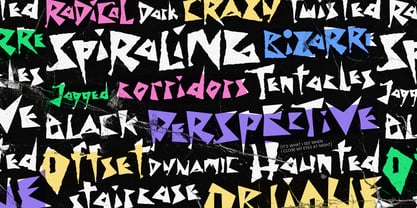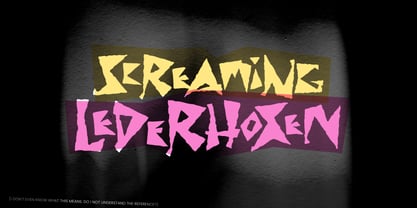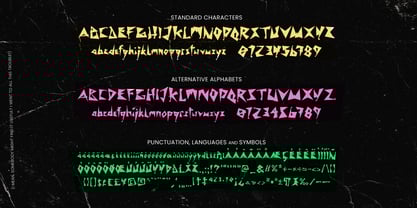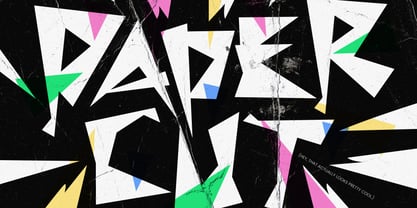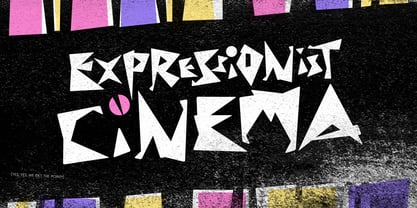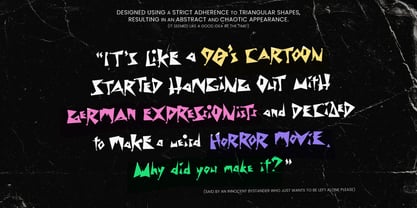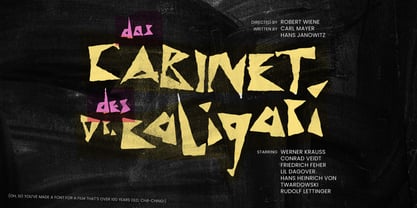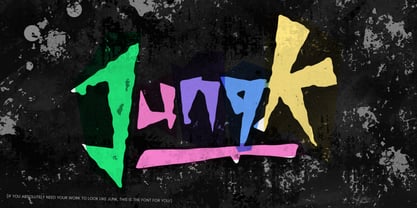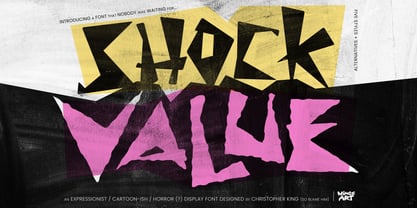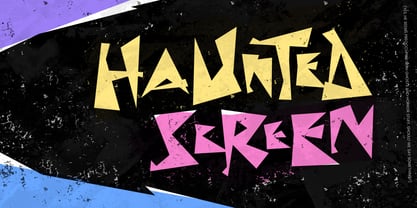
Shock Value
by Wing's Art Studio
The Shock Value Font Family was designed by Christopher King and published by Wing's Art Studio. Shock Value contains 10 styles and family package options. More about this family
Shock Value - An Expressionist, Cartoon-ish, Horror Display Font.
Introducing a font that absolutely nobody was waiting for, Shock Value! What started as a misguided experiment with triangular shapes grew into a display font reminiscent of German Expressionist cinema, 90s cartoons, and the inevitable dash of horror.
While its appeal is certainly limited, it might suit projects with an irreverent sense of humour, or something that needs to appear chaotic, unhinged and hand-made. If you needed a font that feels like a cold slap in the face with a fish, you've found it!
I even went to the effort to create all the uppercase and lowercase characters, numerals, multilingual support, and a complete set of alternatives for all five styles - I must be nuts! If I can remain positive for a moment, (like a parent to a child who's just been shown an indecipherable scribble) I'd say that it does look cool used in title designs, when mixing up the sizes and using the angular features to create interesting character combinations. Why not laugh/see for yourself in my visuals! Enjoy!
Christopher King (aka Wingsart Studio) is a Graphic Designer specialising in hand-drawn lettering for film and television titles. From blockbuster films to indie press, Wingsart Studio fonts have appeared on screens big and small around the globe. His work has been used by companies including Disney, Marvel, Apple, Netflix and Paramount Studios.The Wingsart Studio philosophy is to embrace the imperfections inherent with real pens, pencils, paper and brush. In counter-balance to an AI driven age, these fonts remain refreshingly analogue and proud of their human touch. Before a single letter turns into a digital product, countless hours are spent researching and sketching out ideas in pursuit of those perfect lines and shapes.